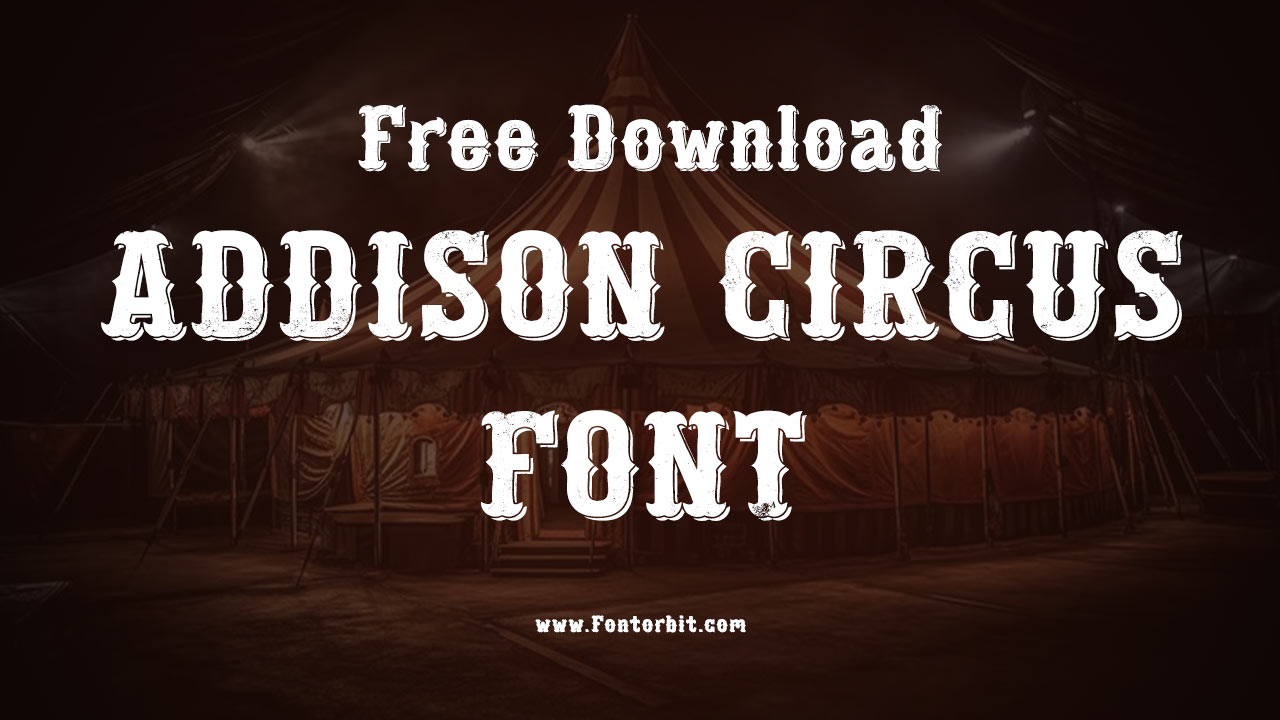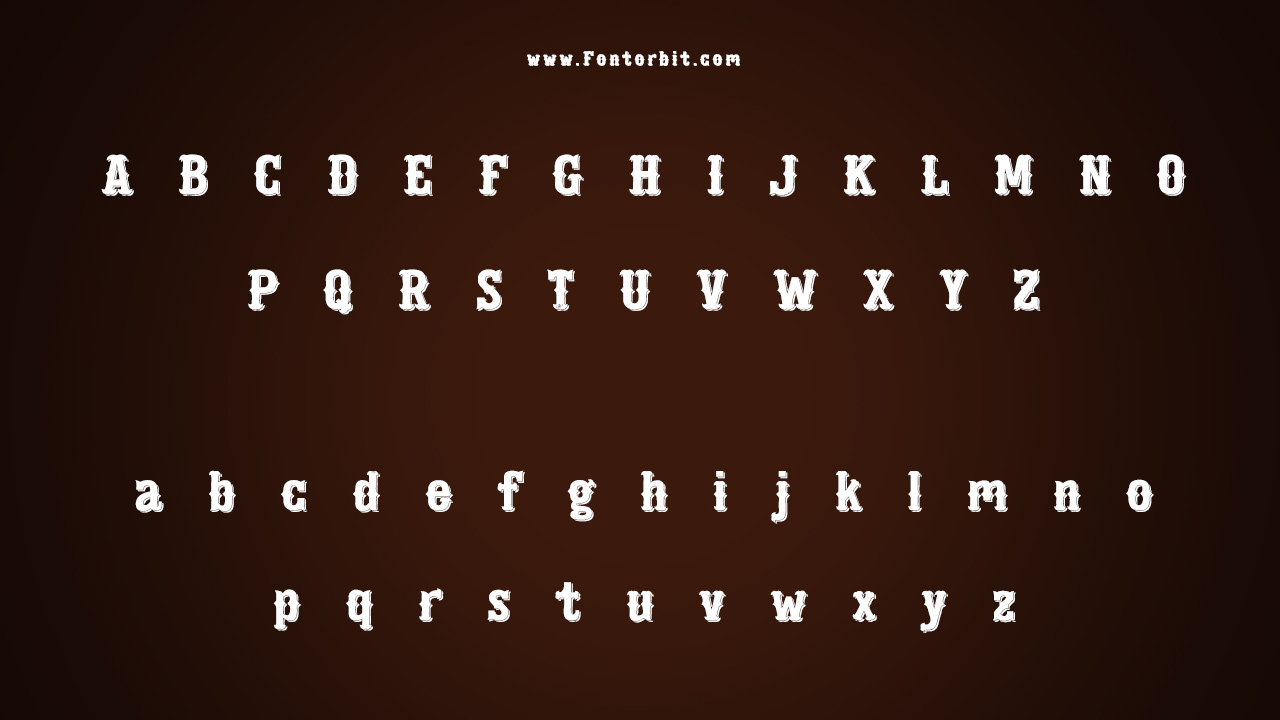
The Addison Circus Font, designed by Kimmy Kirkwood and published by Kimmy Design, blends modern Western styles with rustic textures. This versatile typeface includes four distinct styles, offering both bold and decorative options, ideal for a range of design applications.
The Addison Circus Font Family
- Addison Circus Flat
- Addison Circus Drop
- Addison West Flat
- Addison West Drop
Addison Circus features bold strokes and a unique texture. It supports 143 characters and over fifty glyphs. With broad language support, including English, Greek, French, and Spanish, this font is well-suited for various personal and professional uses.
Addison Circus is perfect for classic branding, providing a distinctive, eye-catching element to logos and promotional materials. Its modern and rugged look enhances editorial layouts, print advertisements, and social media posts. Additionally, it’s ideal for web development, t-shirt designs, and product branding, offering a stylish touch to any design project.
The Addison Circus Font combines a modern aesthetic with rustic charm, making it an excellent choice for branding, advertisements, and digital designs. Its various styles and broad language support ensure it adds a sophisticated, unique flair to any project.
1.What Is The Addison Circus Font?
Addison Circus is a typeface by Kimmy Kirkwood that combines modern Western styles with rustic textures. It is available in multiple styles, including bold and decorative options.
2.How To Choose The Right Style For Addison Circus Font?
Select Regular or Bold for strong, clear designs and white or Decorative for unique, stylized elements in branding, advertising, and other creative projects.
3.What Are The Key Features Of The Addison Circus Font?
Addison Circus features bold strokes, distinctive textures, and broad language support, enhancing its versatility for various design needs.
4.How To Use The Addison Circus Font In Branding?
Utilize Addison Circus for impactful logos, advertisements, and promotional materials to achieve a memorable and sophisticated brand identity.
5.What Are The International Language Support Options For The Addison Circus Font?
Addison Circus supports several languages, including English, Greek, French, and Spanish, making it suitable for diverse design applications.